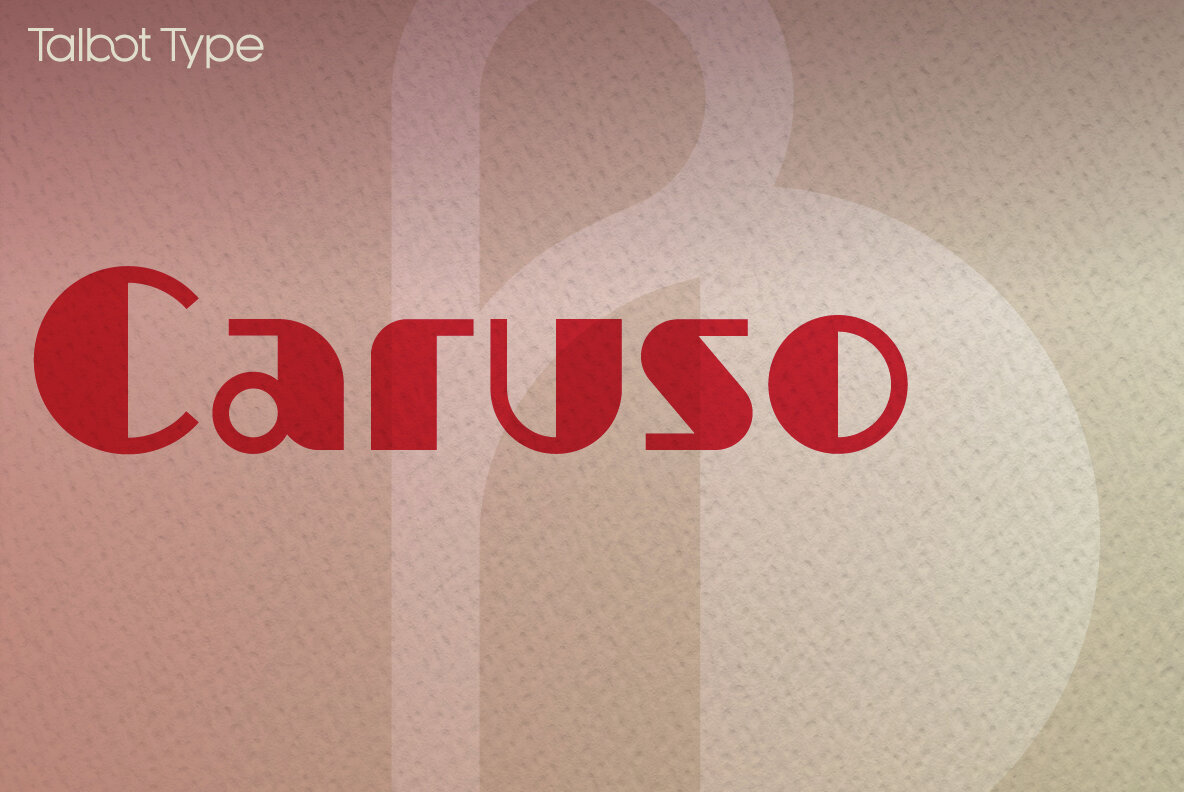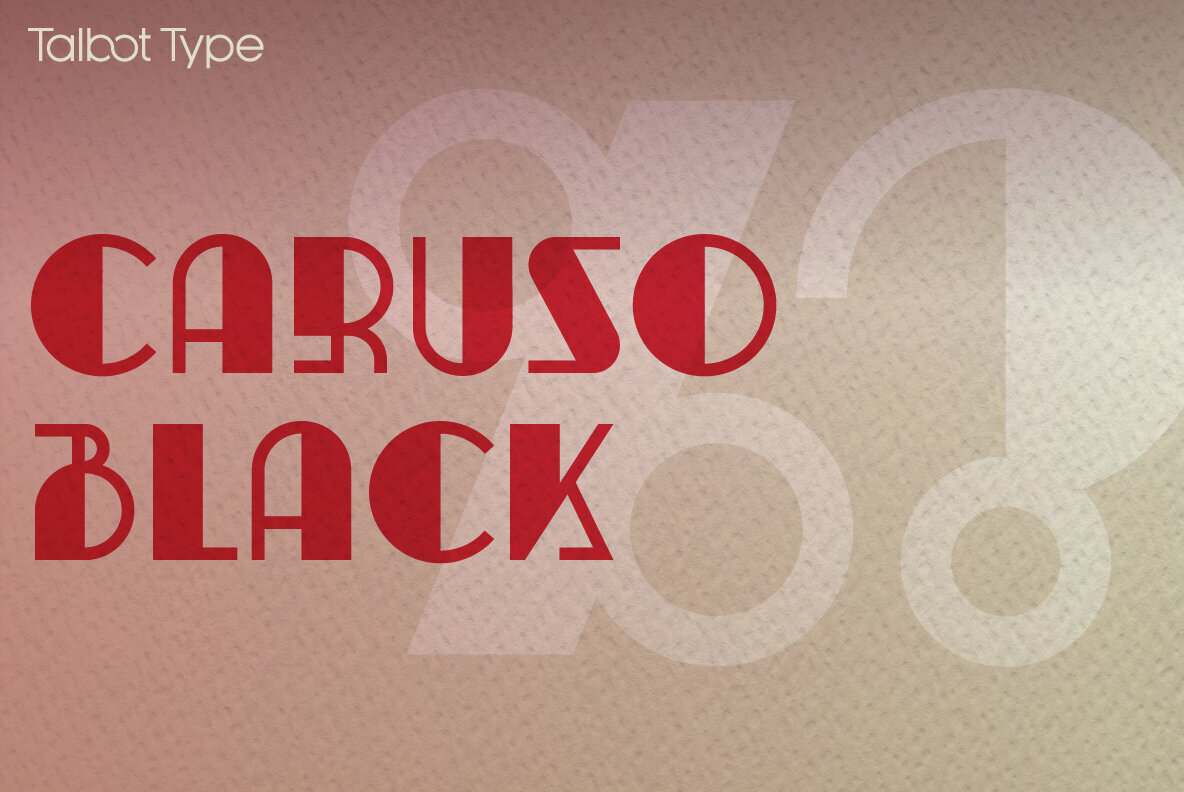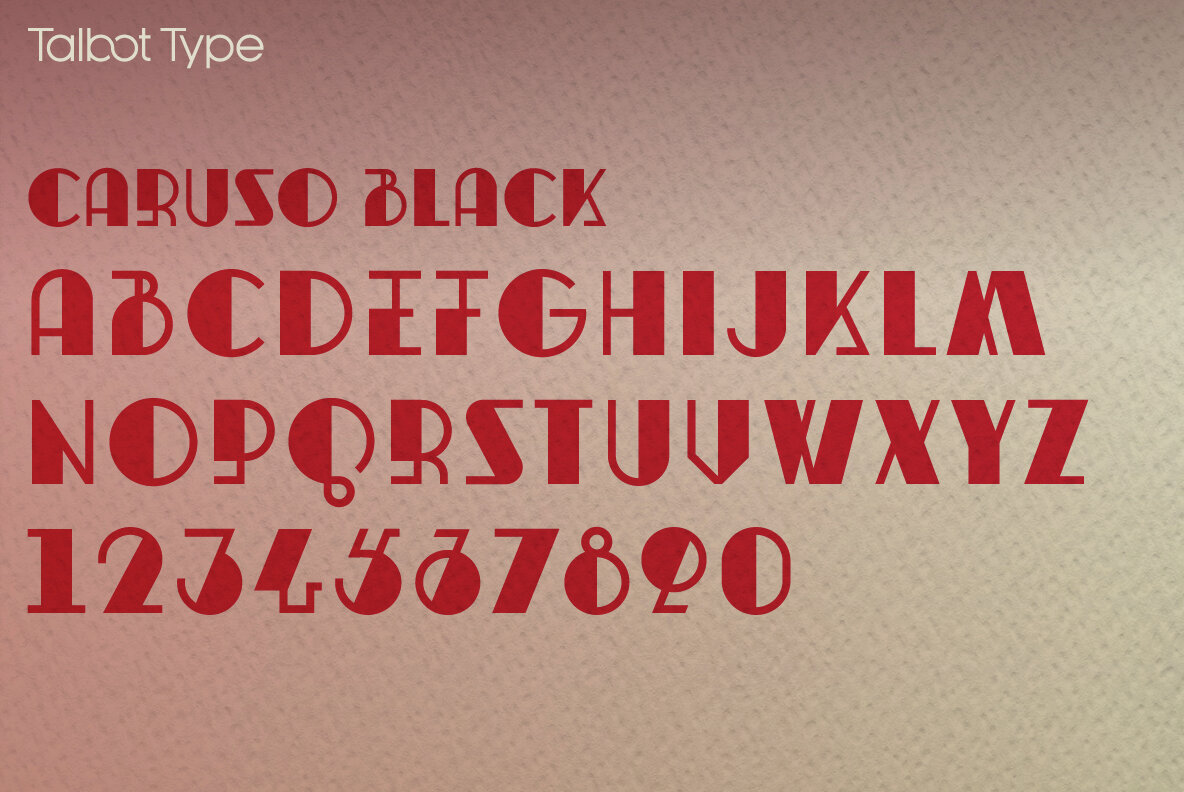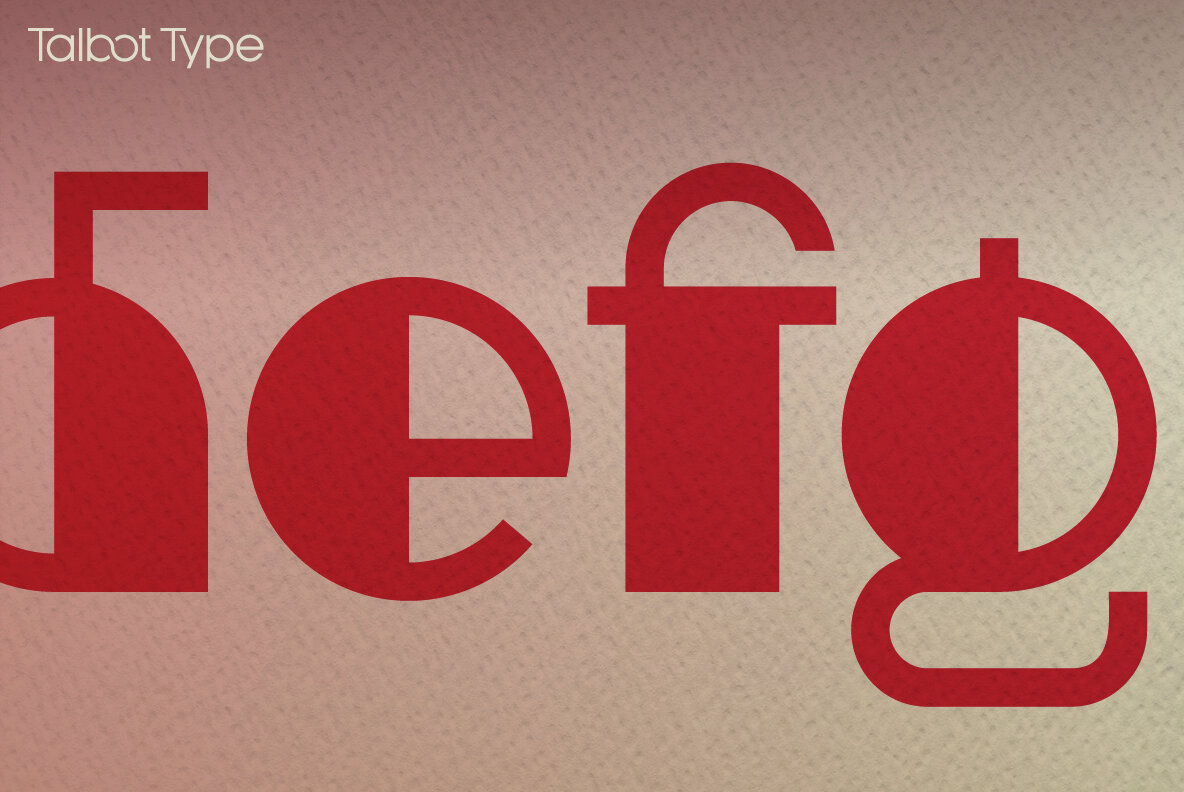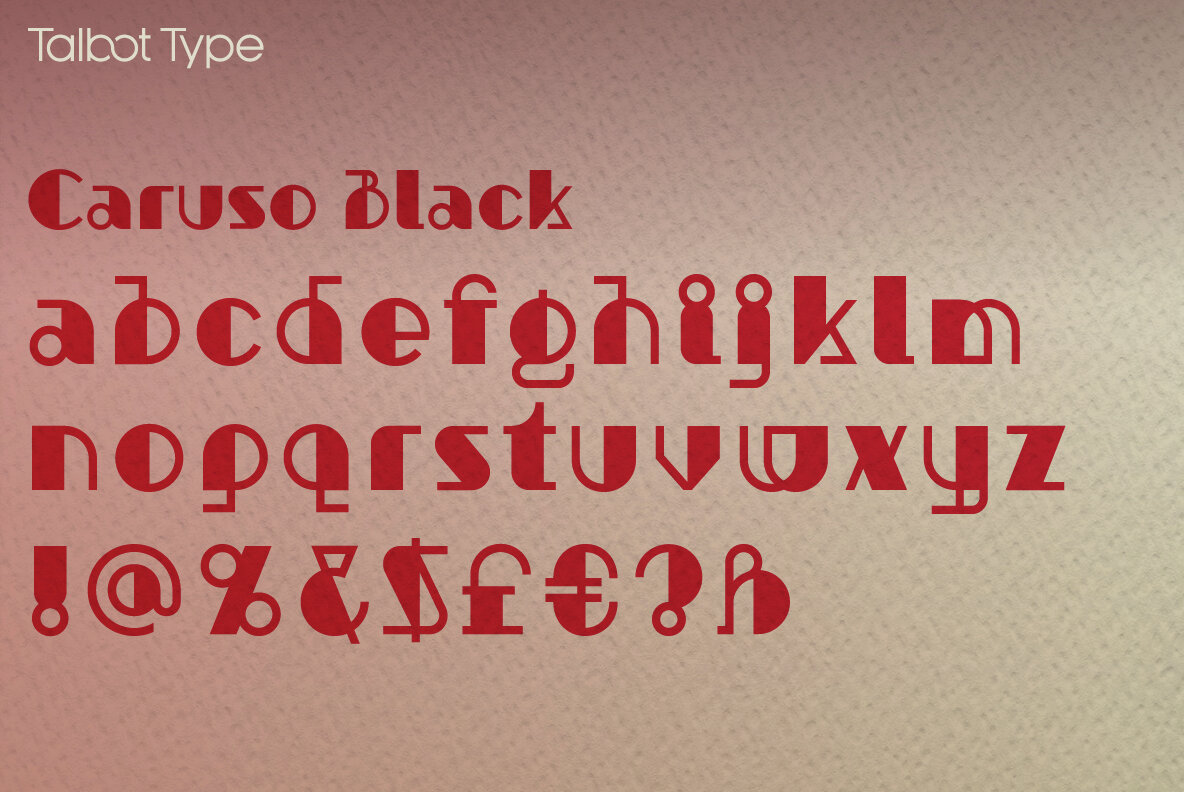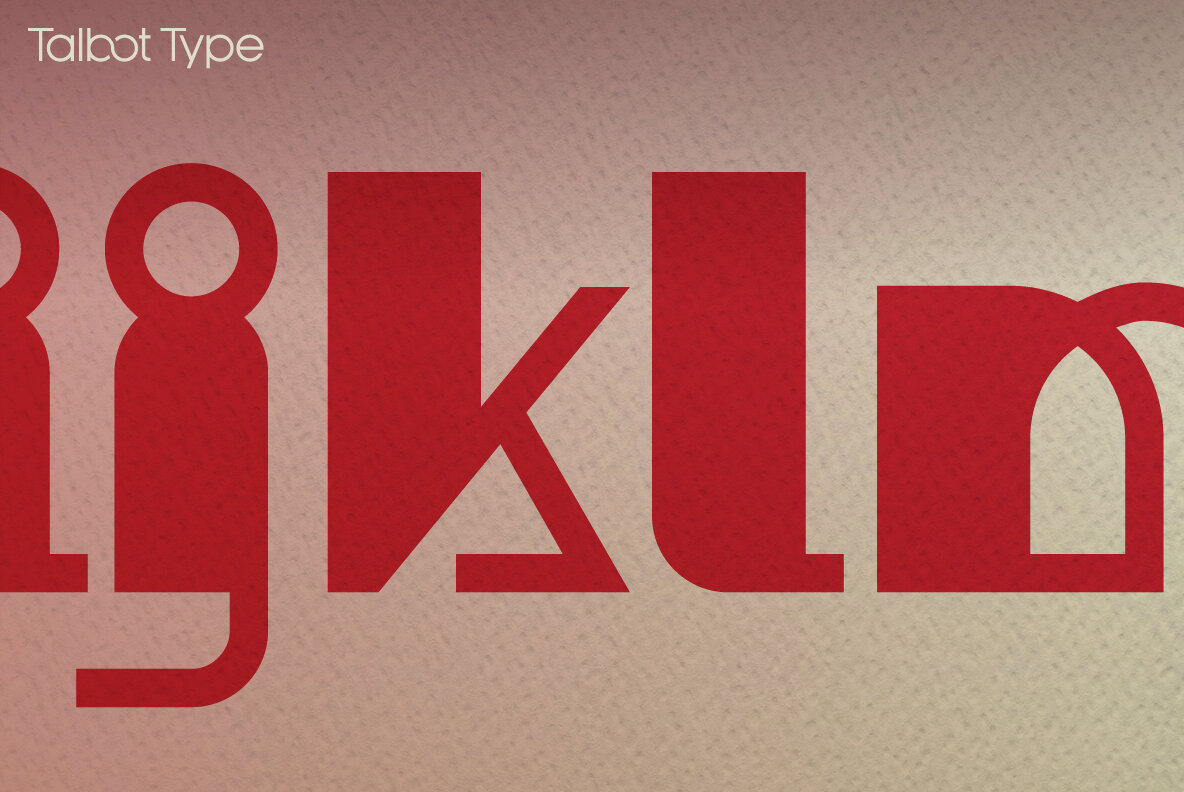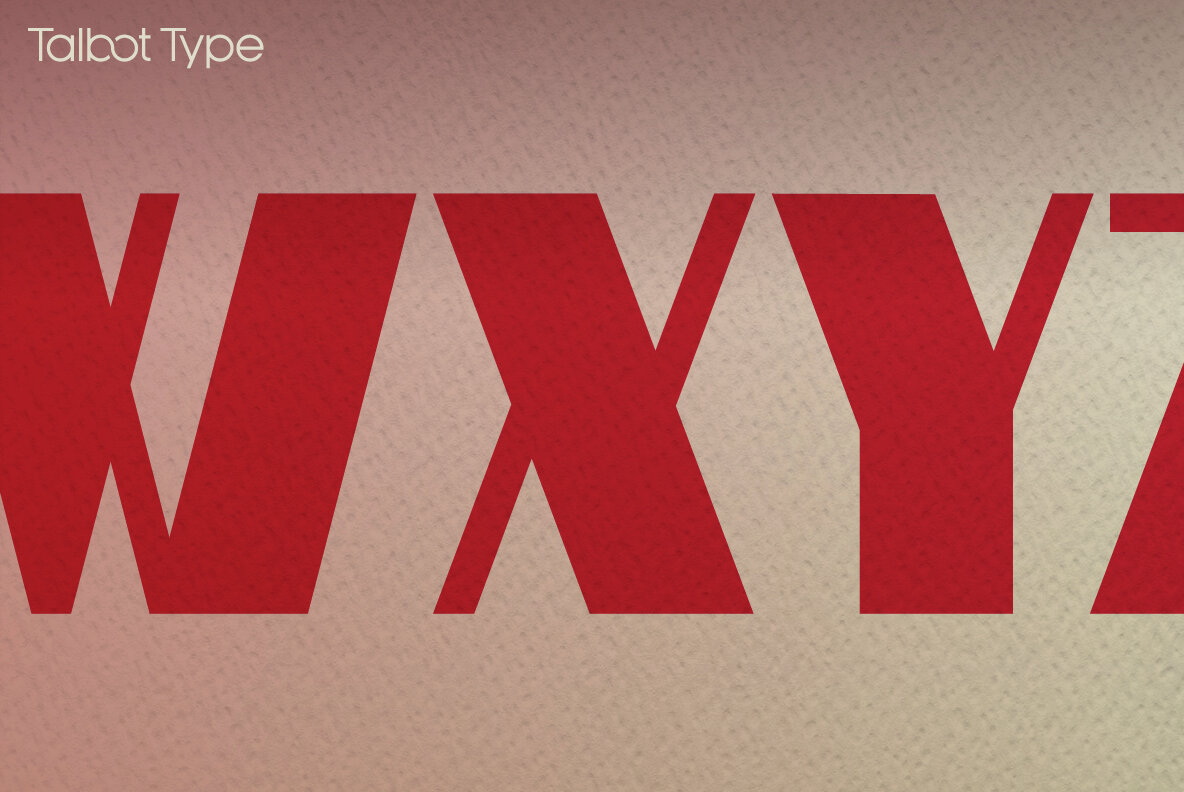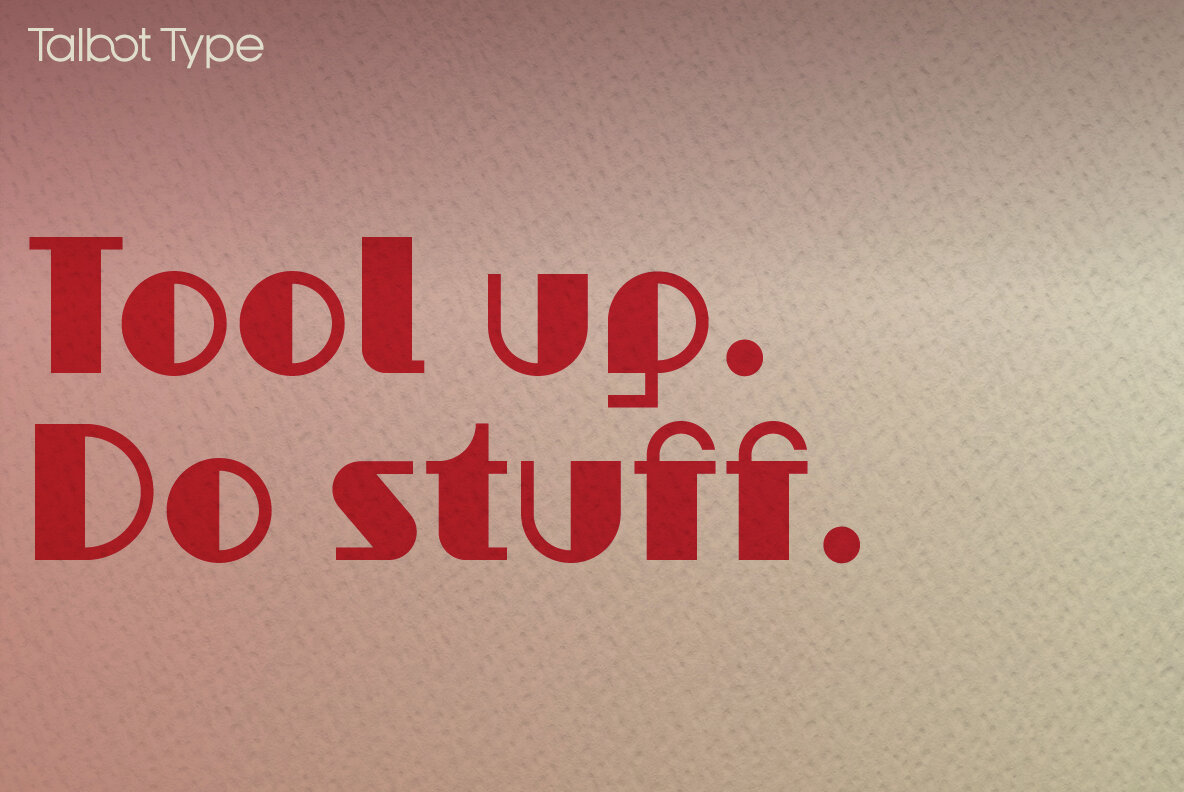
Caruso Black Font
Caruso Black
Caruso Black Oblique
Caruso Black stands out in the font world with its sharp, geometric design, drawing inspiration from the elegance of the Art Deco era. Departing from traditional Art Deco styles of the 1920s and 30s, Caruso Black offers more than just a striking aesthetic. It is crafted to be a practical choice for modern designers, providing both full uppercase and lowercase sets. This, along with accented characters, supports an extensive range of Western and Central European languages.Caruso Black: A Geometric Display with Art Deco Elegance